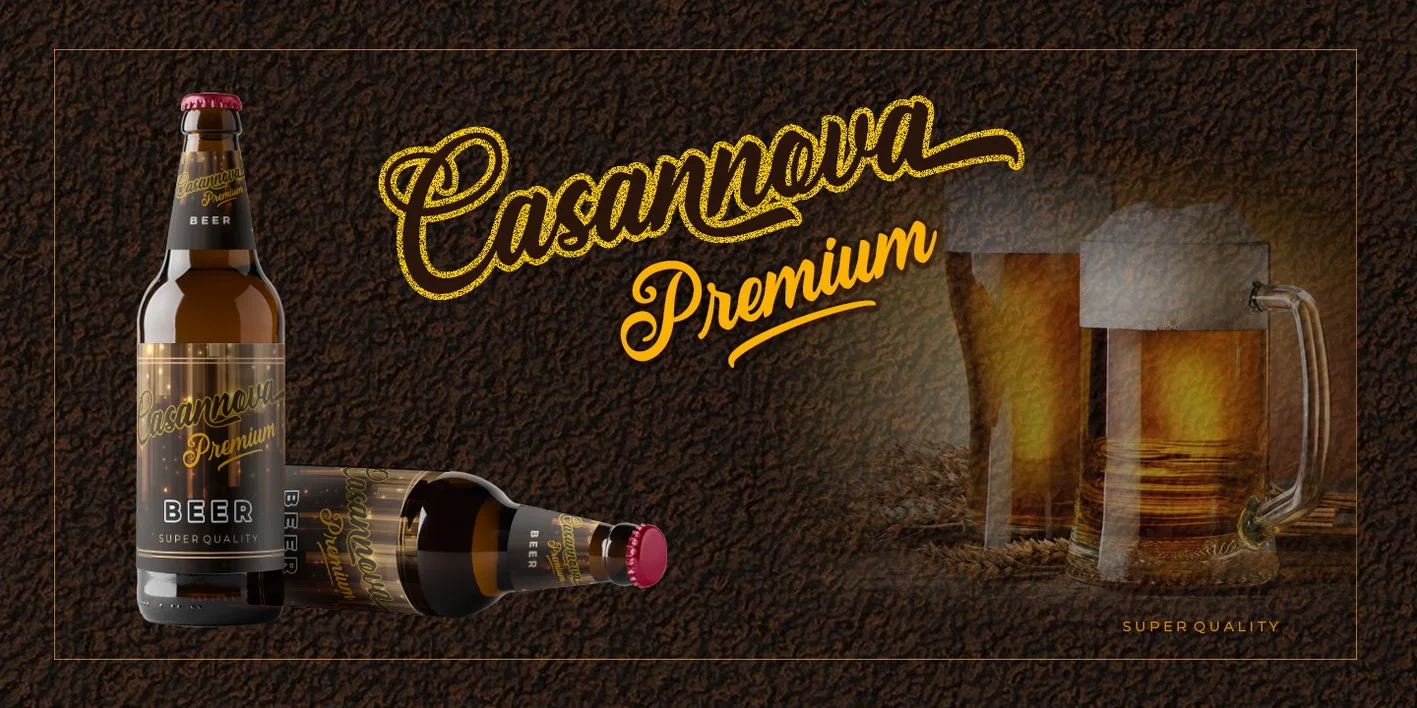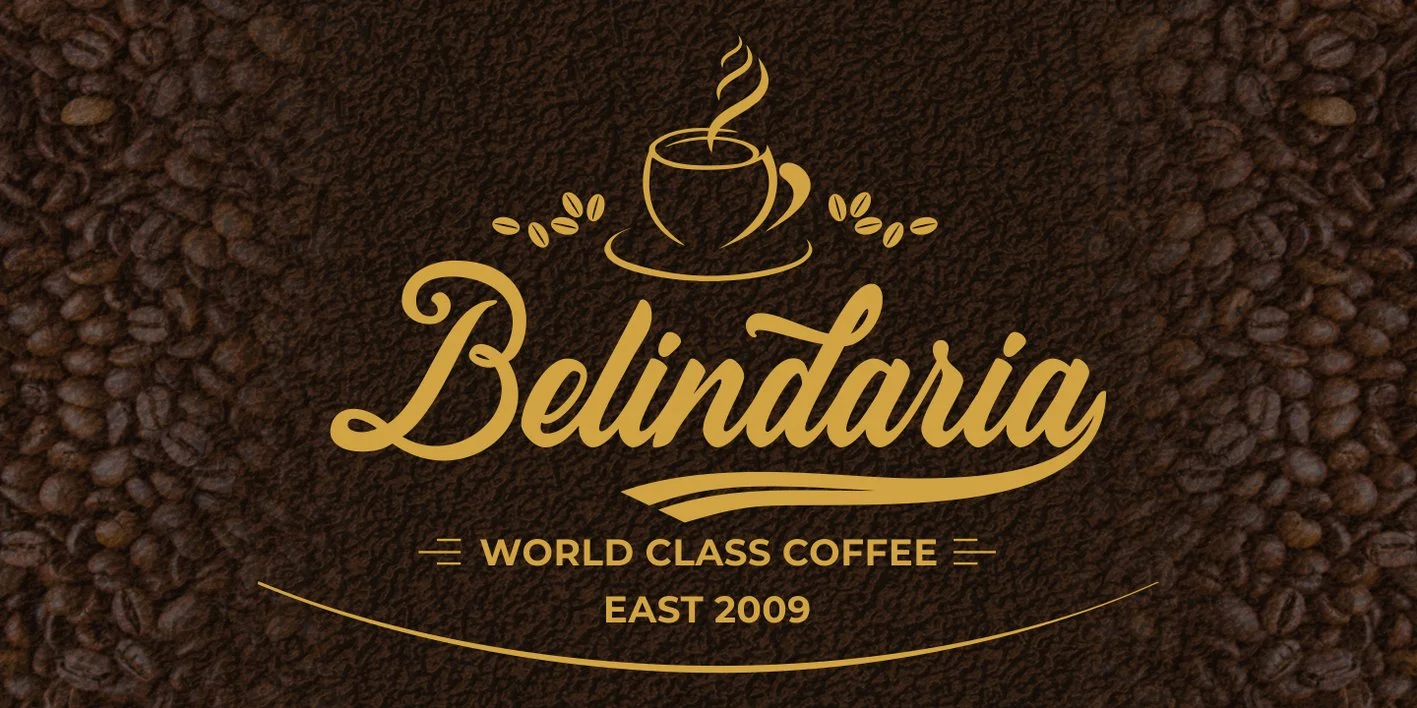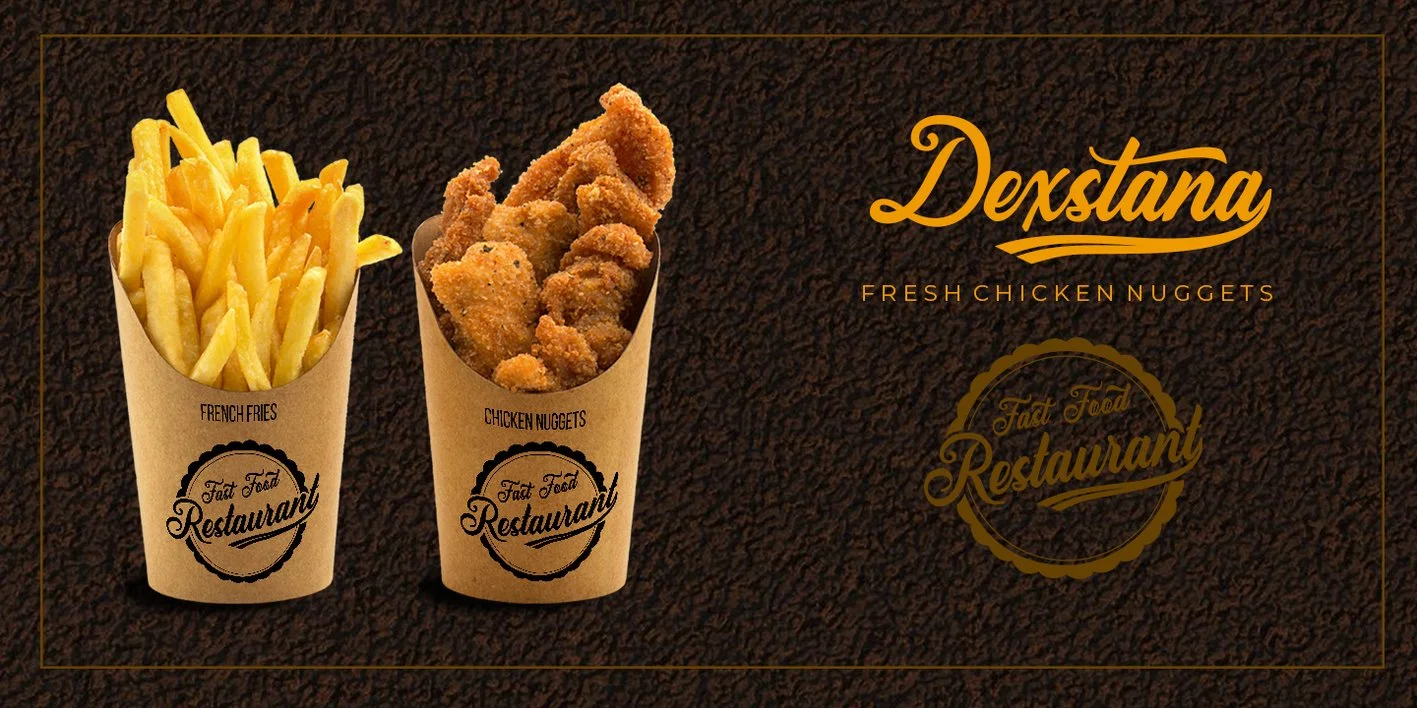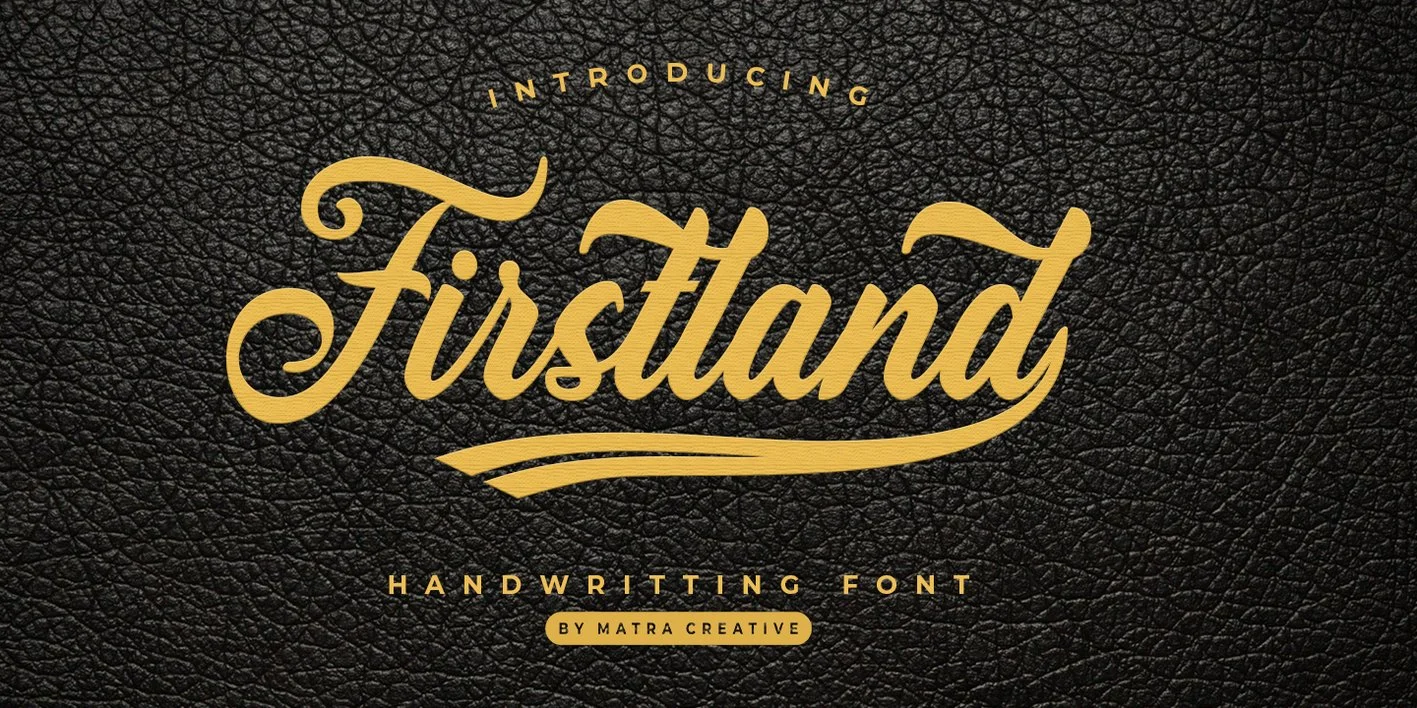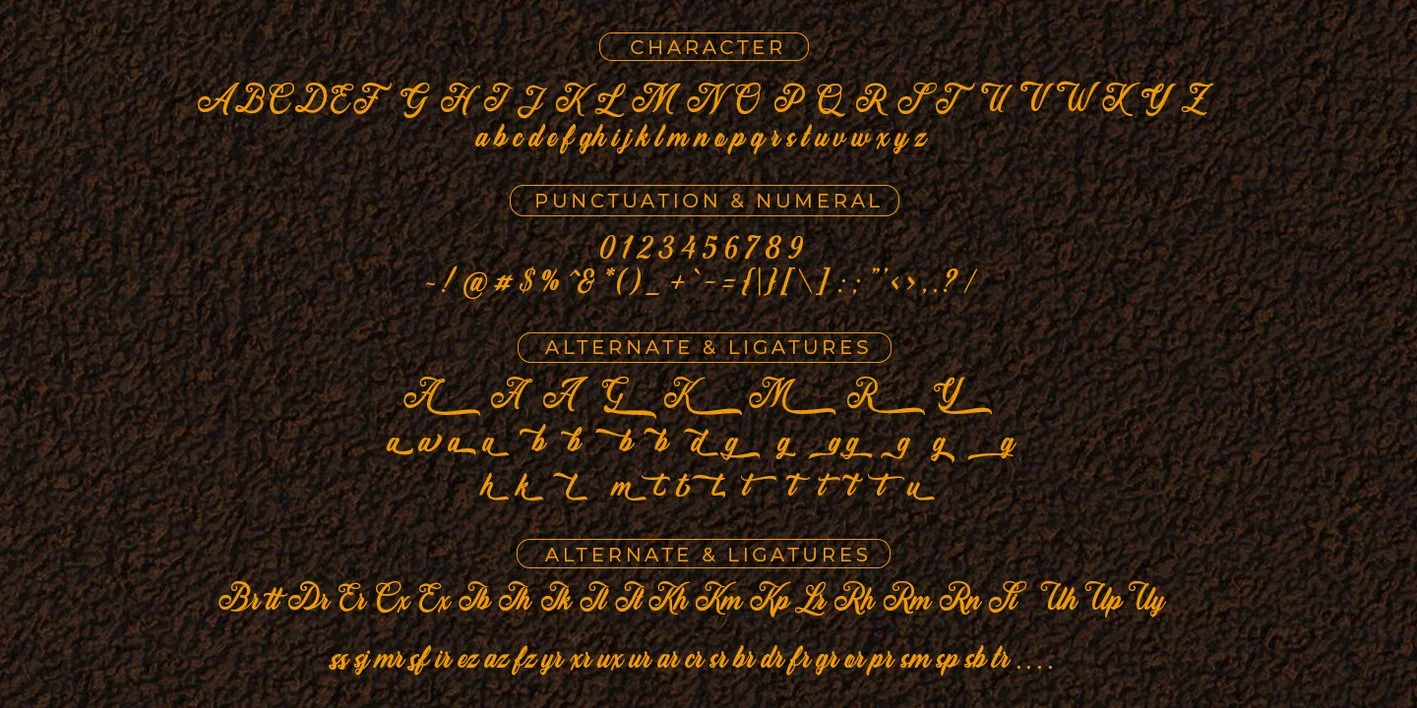
Firstland Font
When a design brief calls for both the kind of restraint that lets content lead and immediate visual impact, type choices matter — Firstland answers that brief. The typeface brings an elegant, calligraphic sensibility to a broad range of creative disciplines, with distinctive character without sacrificing readability that holds up whether the work is print-first or screen-first.
In practice, Firstland proves particularly effective for perfume labels, event signage, poster creation, social media graphics, editorial layouts. Designers reaching for it find that the type decisions feel resolved rather than laboured — a useful quality when client timelines are tight.
The range of applications extends to environmental graphics, logo design, annual reports, fashion editorials. That breadth is deliberate: the proportions and spacing were stress-tested across a wide range of mock briefs before the typeface was finalised.
The letterforms draw from classical calligraphic tradition, with carefully modulated thick-to-thin stroke contrast that mimics the pressure of a pointed nib. Connecting strokes have been optically adjusted so words flow naturally without awkward gaps between characters.
Firstland sits comfortably alongside both classic and contemporary typefaces in multi-font hierarchies. It takes direction rather than competing for attention — a quality that experienced designers know is harder to find than it appears.
Motion designers building title sequences and lower thirds find Firstland a reliable choice for projects that demand both personality and restraint. The design avoids the self-conscious quirkiness that dates quickly, settling instead for considered distinctiveness that holds up over time.